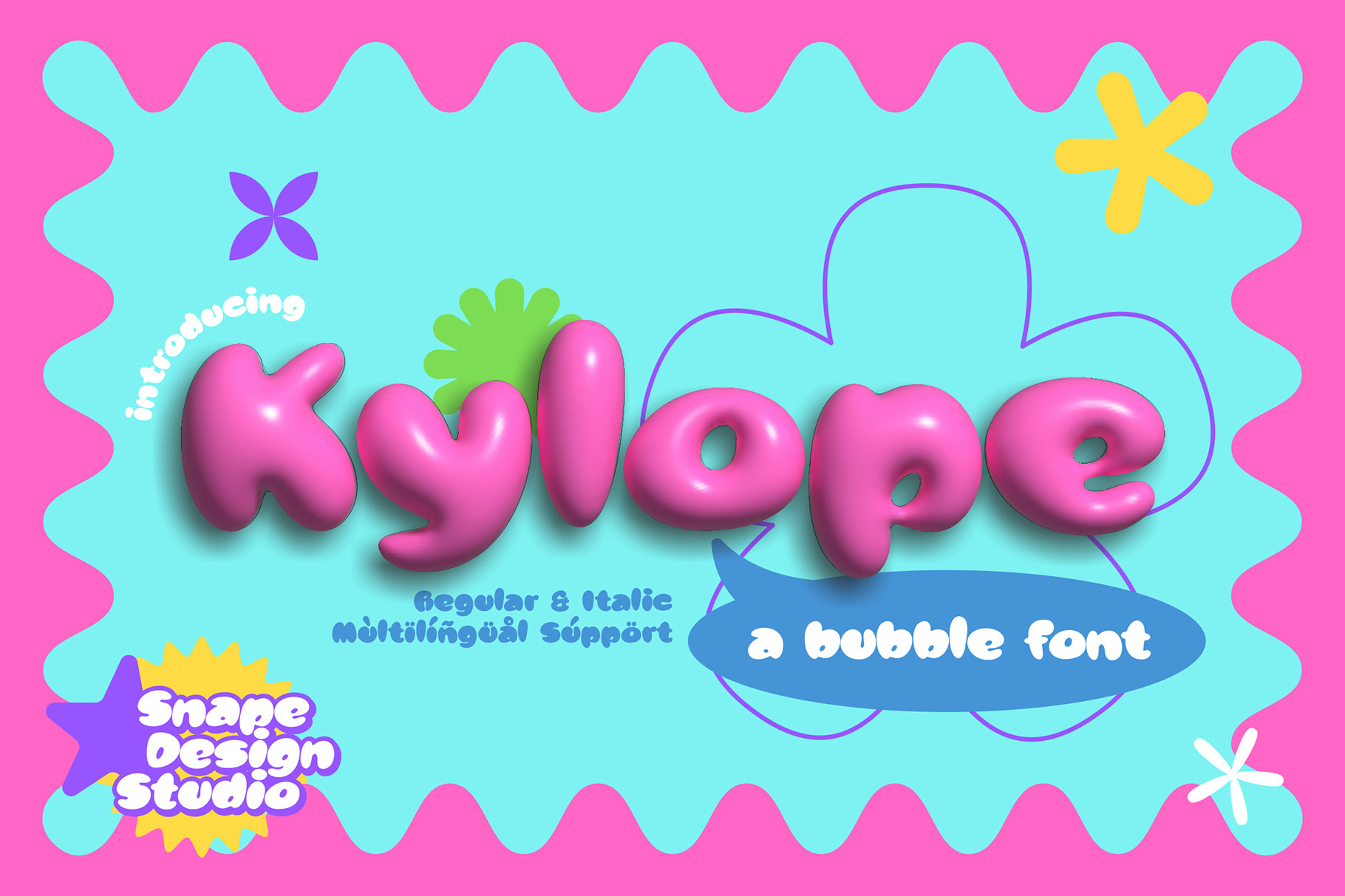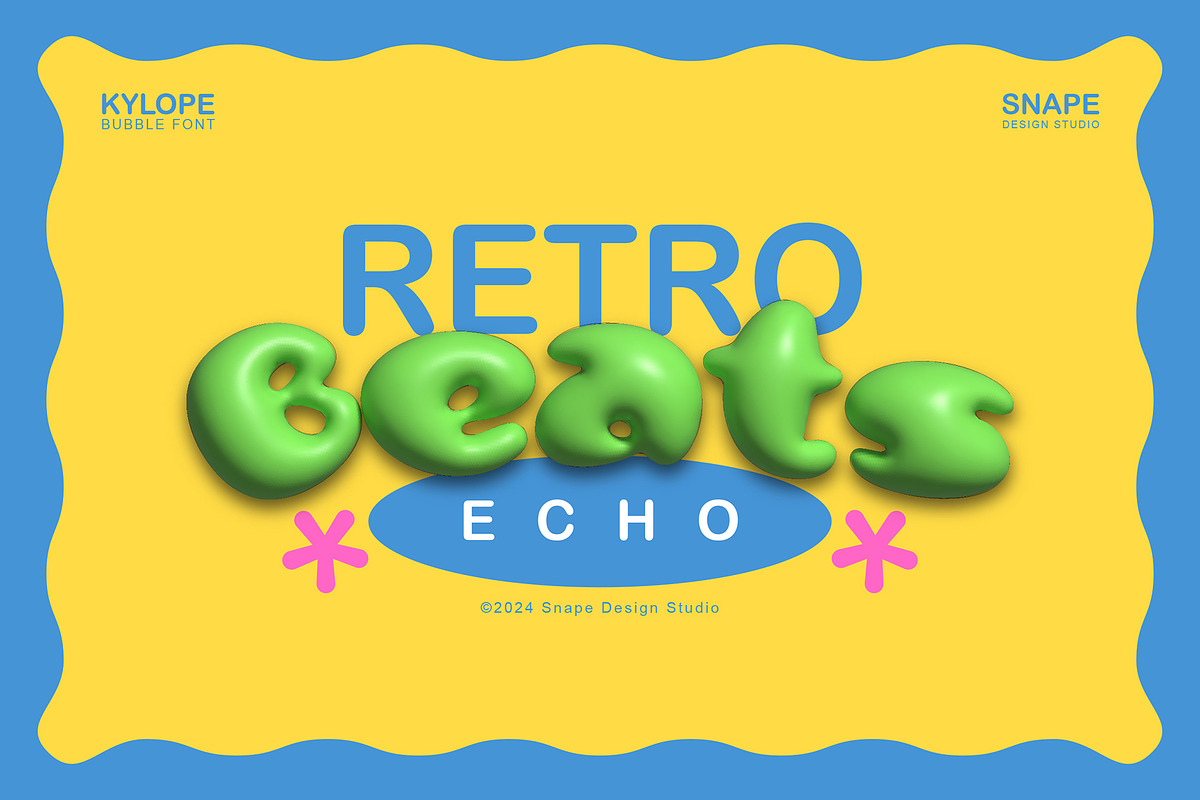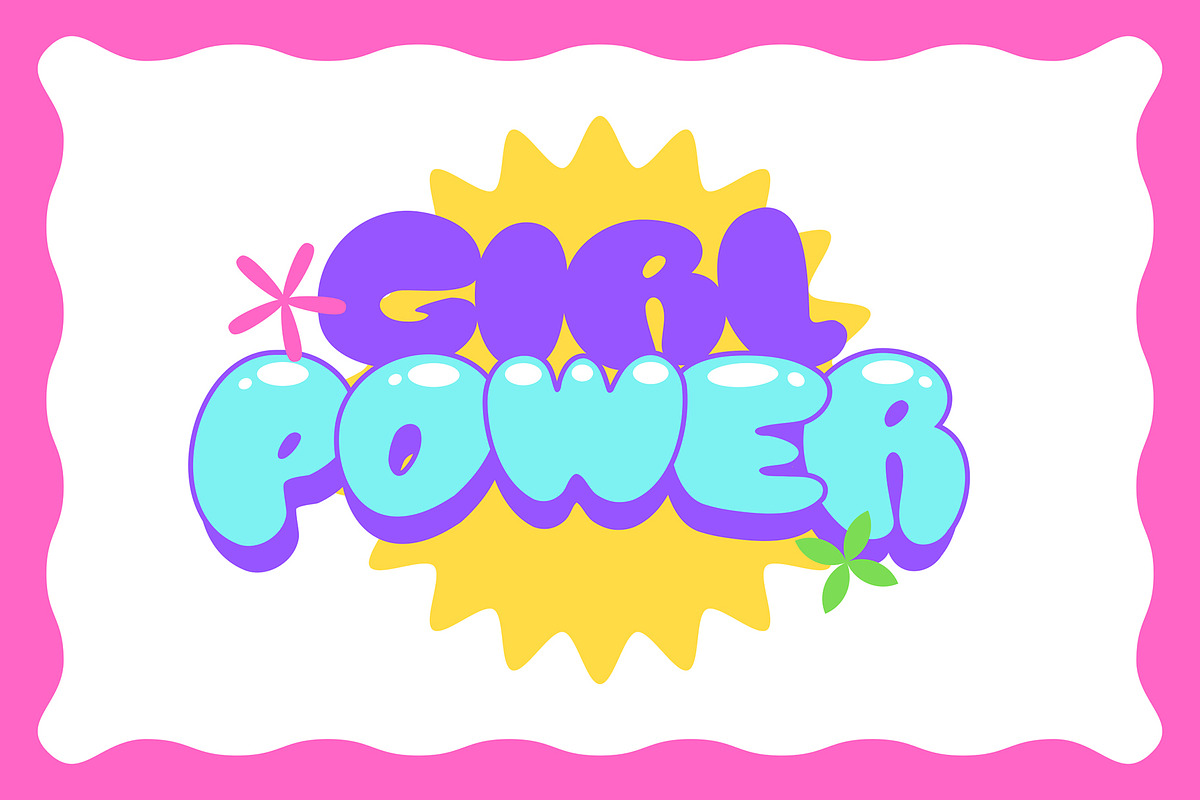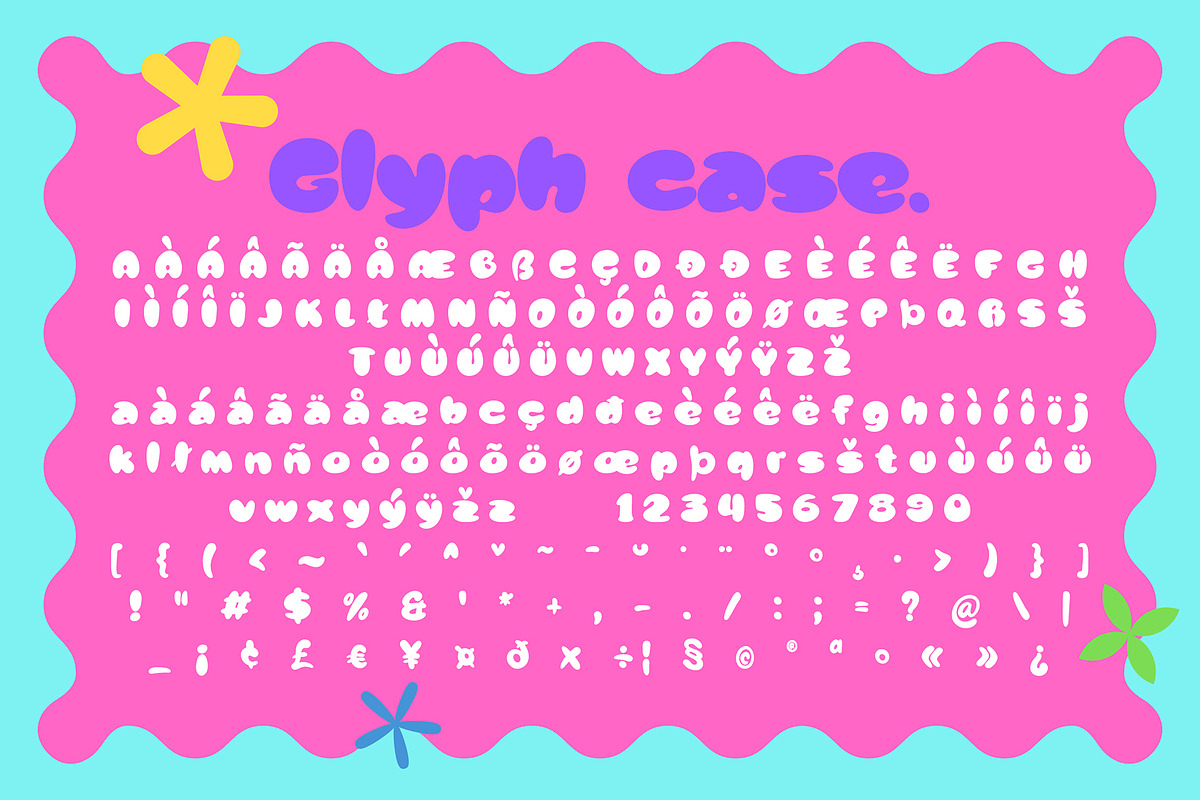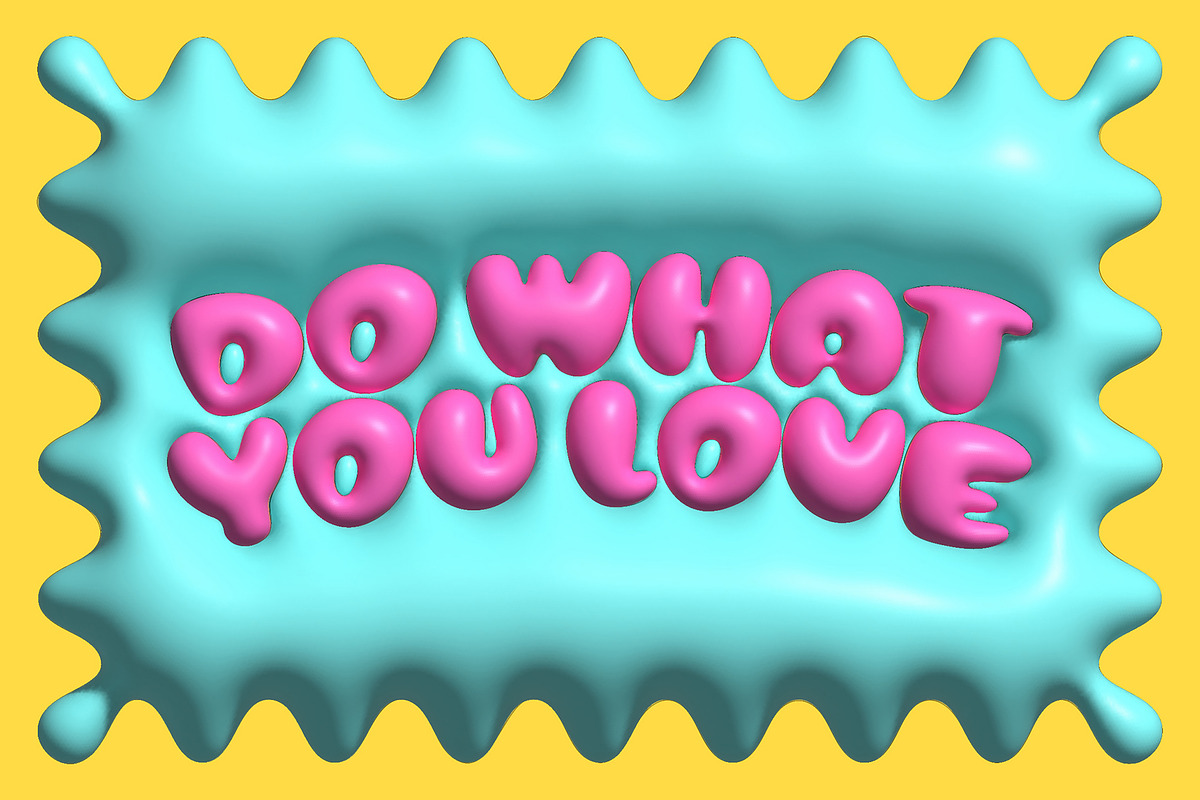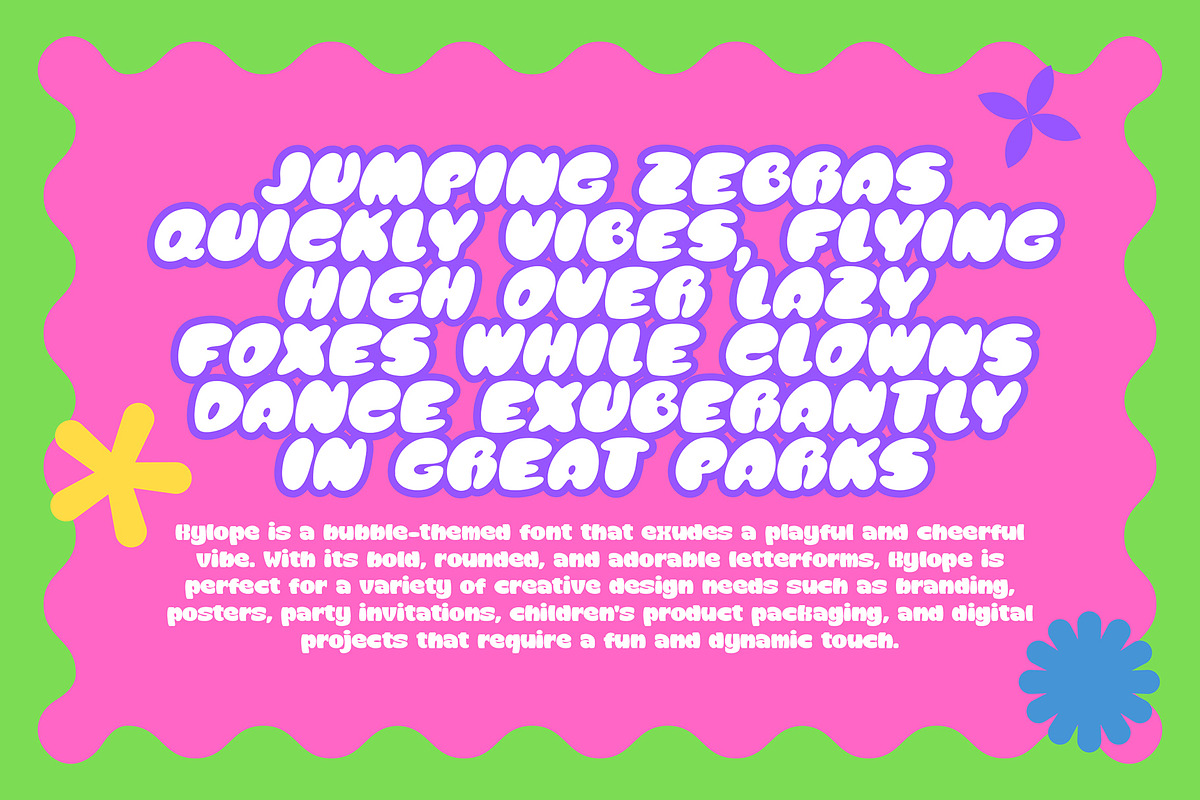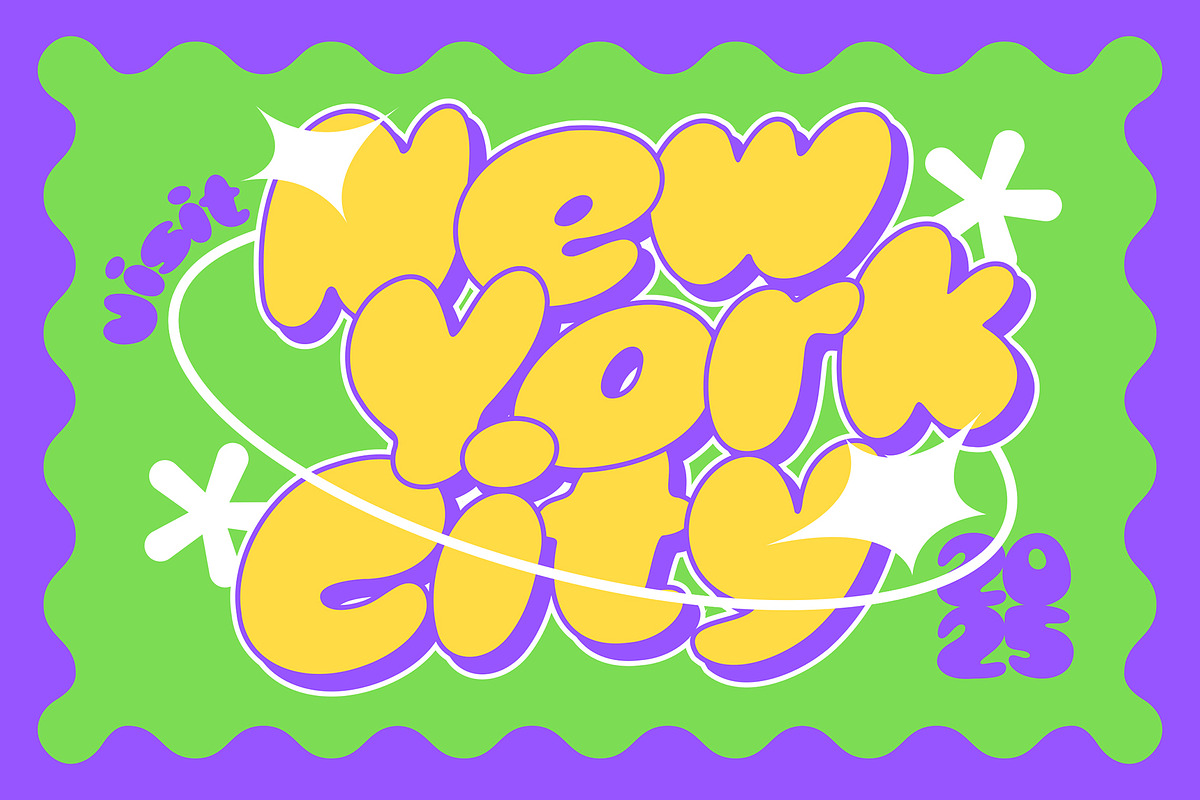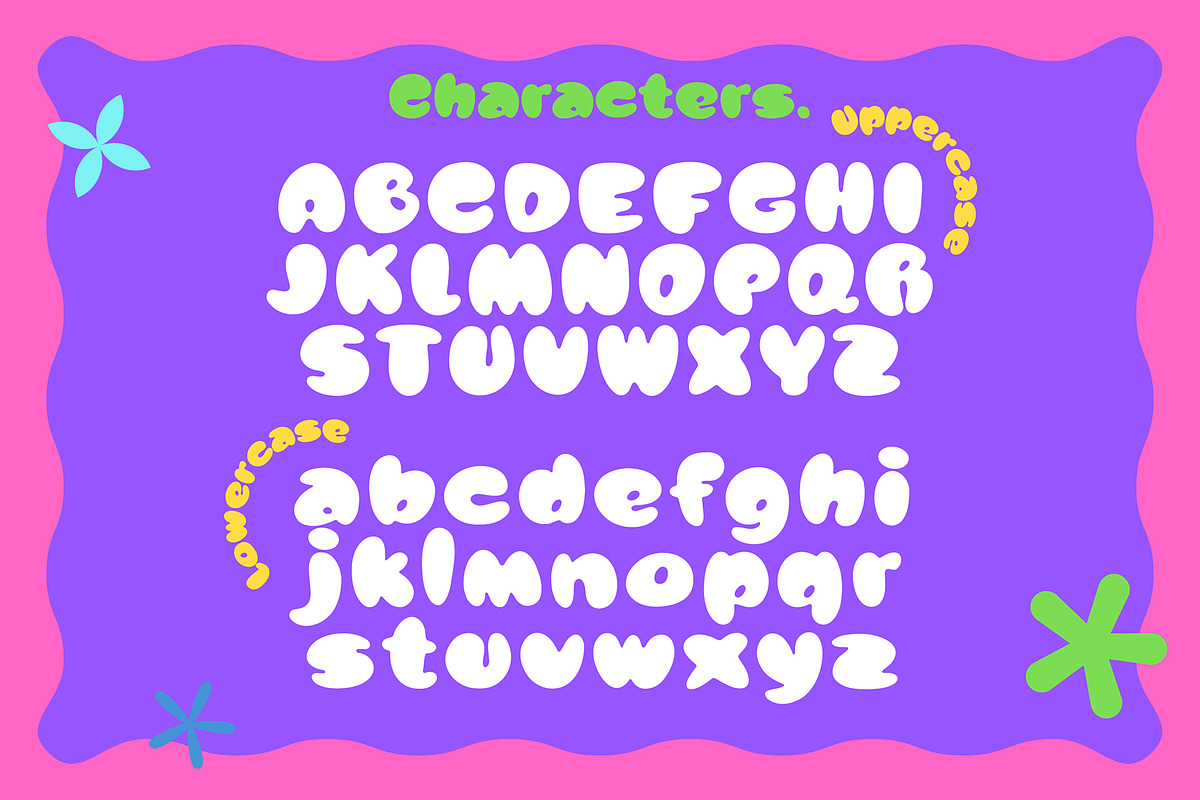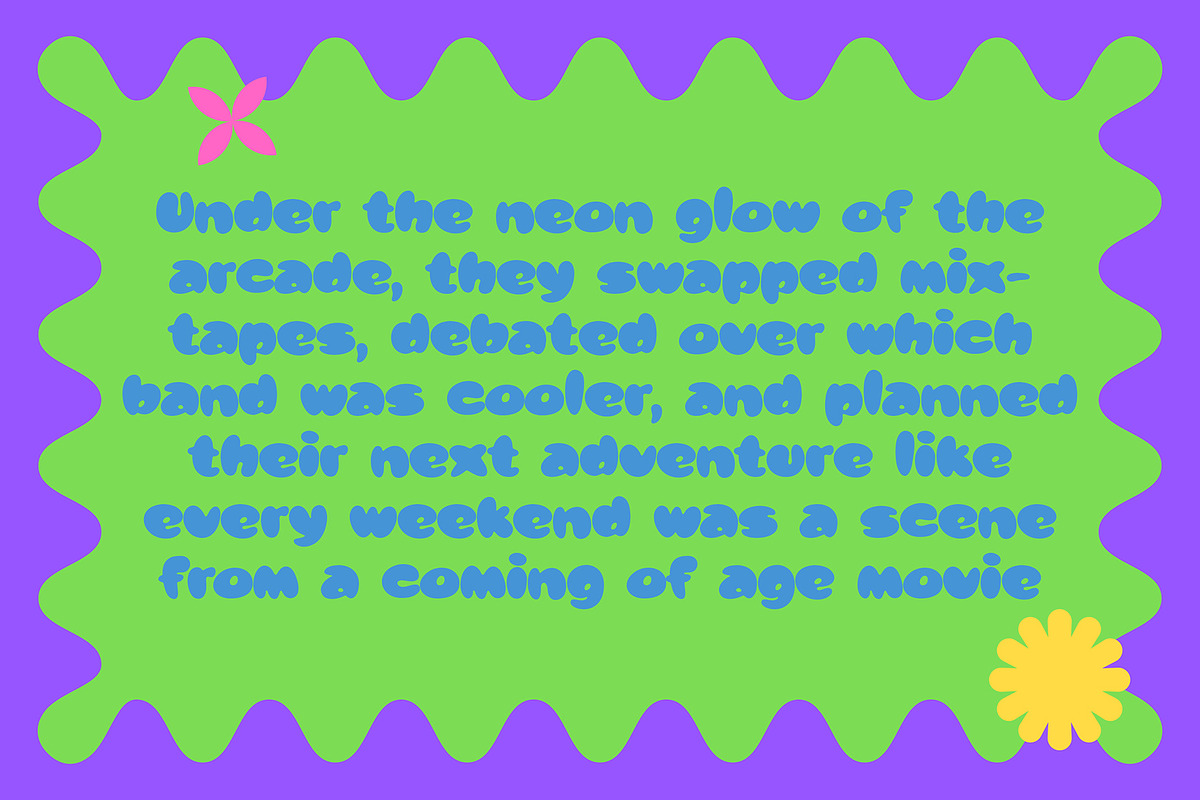
Kylope - Bubble Font
Kylope is a bubble-themed font that exudes a playful and cheerful vibe. With its bold, rounded, and adorable letterforms, Kylope is perfect for a variety of creative design needs such as branding, posters, party invitations, children’s product packaging, and digital projects that require a fun and dynamic touch.
This font is crafted to bring a friendly and inviting impression, featuring organic and unique shapes that make every word feel lively and expressive. Kylope supports English and several other languages, offering an enjoyable design experience for graphic designers.
Bold and cute bubble-style design Perfect for cheerful and modern-themed designs Ideal for applications like posters, labels, and playful branding Kylope is the perfect choice to add a lighthearted and fun personality to your design projects!